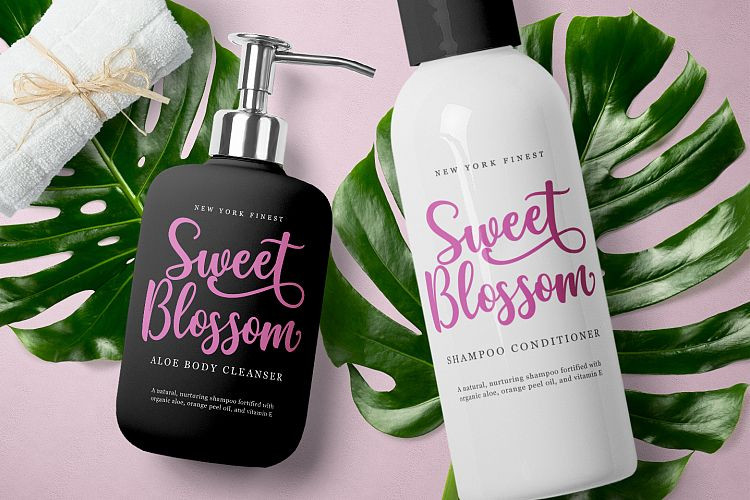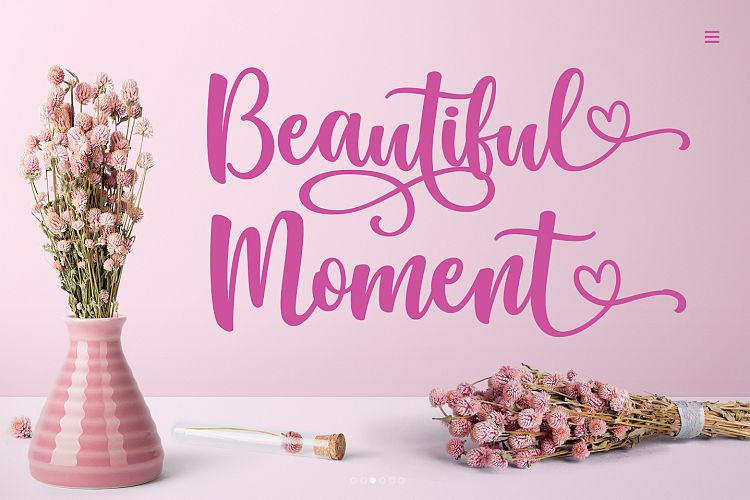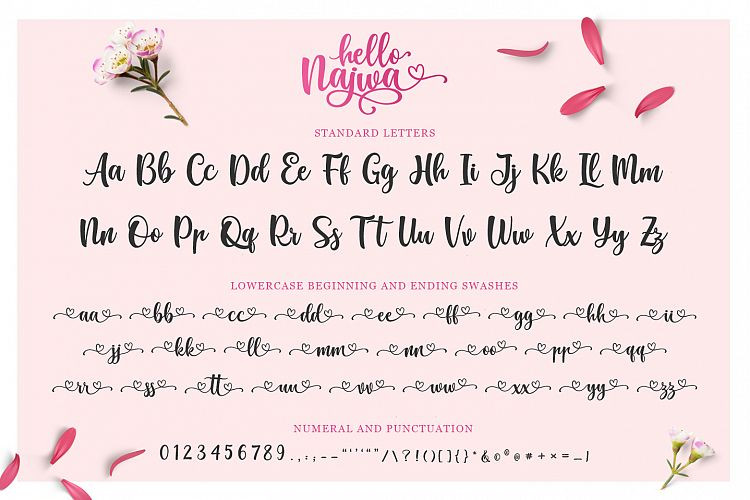
Hello Najwa Script Font
Hello Najwa Script – Demo Font
Hello guys. This is a Calligraphy chick font with exquisite accents. It is perfect for branding, wedding invitations and invitation cards and many more. Introducing Hello Najwa Font. It’s designed and shared by Kotak Kuning Studio. It’s a lovely bouncy script font with a natural & stylish flow. Perfect for making elegant stylish statements – or adding a touch of class to your designs. This script has a multitude of lovely alternates character in its OpenType features – making the font look a beautiful.
Hello Najwa Calligraphy is perfect for many different projects such as logos & branding, invitation, stationery, wedding designs, social media posts, advertisements, product packaging, product designs, label, photography, watermark, special events or anything.